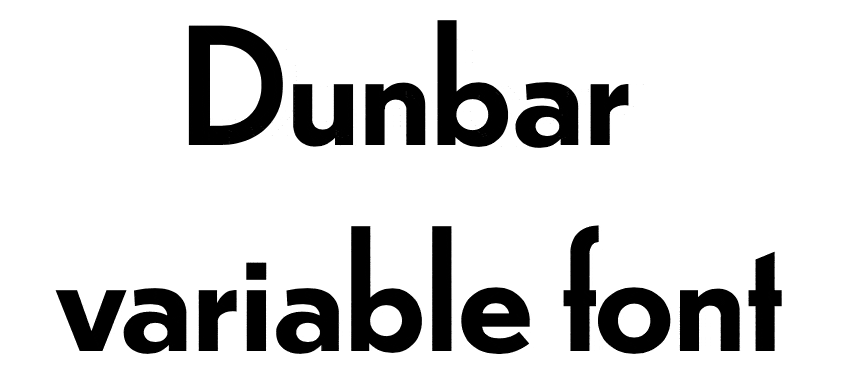
WebFonts: Power Up!
Chris Lilley
Topics for today
Basics
Character
a codepoint, with properties
Glyph
visual representation of character(s)
fi
character(s), glyph(s)
é
character(s), glyph(s), font(s)
Myriad Pro <— Font family
Baskerville<— Font family
Properties & descriptors
Descriptors
describe individual font faces
Properties
requests for styling
OpenType Features & CSS
CAPITALE FULGURANT
et modeste avec ça
INCROYABLE astrale
OpenType features
Optional stylistic controls
Control with CSS
Fonts vary in features provided
font-variant
Preferred, but poor support
font-feature-settings
Cryptic, low-level, widespread support
Color Fonts
From illuminated manuscripts…
illuminated manuscript
…to emoji
Painter Kafeel
TransType Editor
screenshot for demo
COLR + CPAL
COLR: stack of TrueType outlines
CPAL: color palette(s)
Painter Kafeel
Where did the styling go?
SVG (+ CPAL)
SVG: SVG graphics
CPAL: color palette(s)
CSS variables: alter palette
Painter Kafeel
Painter Kaffeel
CSS4 font-palette
select from provided palettes
CSS4 @palette-entries
override baked-in palettes
Variable Fonts
Quick question
CSS4 font-weight
a number from 1 to 999
Variable Font support
weight, width, slant, optical, custom
Dunbar variable font
peace
This may be the most significant development for design on the web since responsive design itself
—Jason Pamental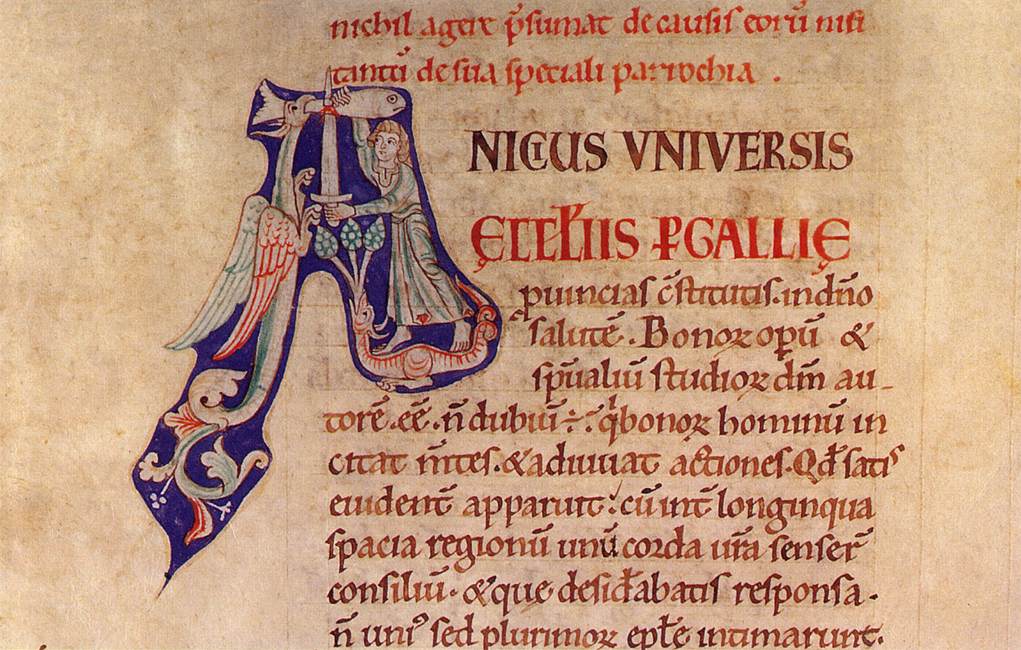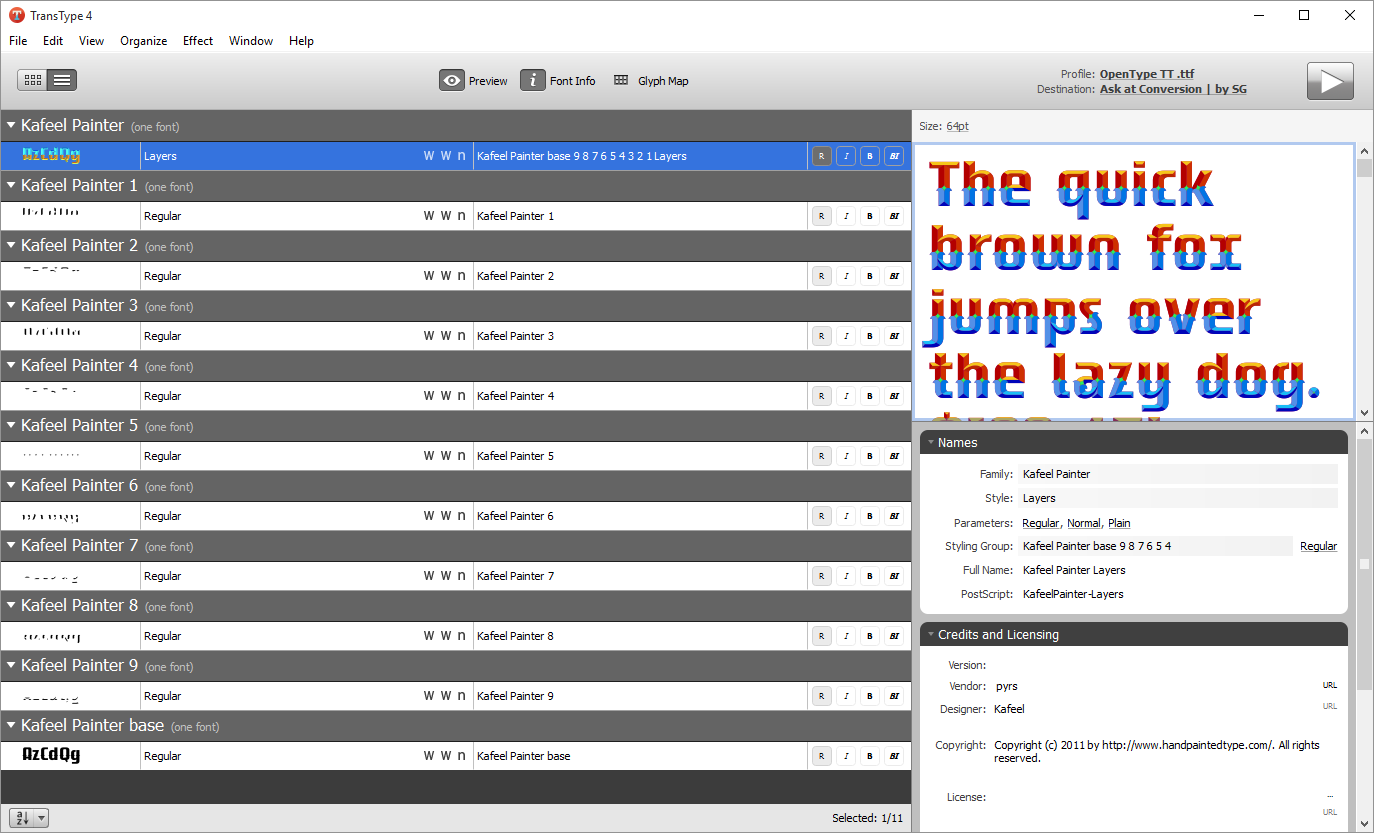